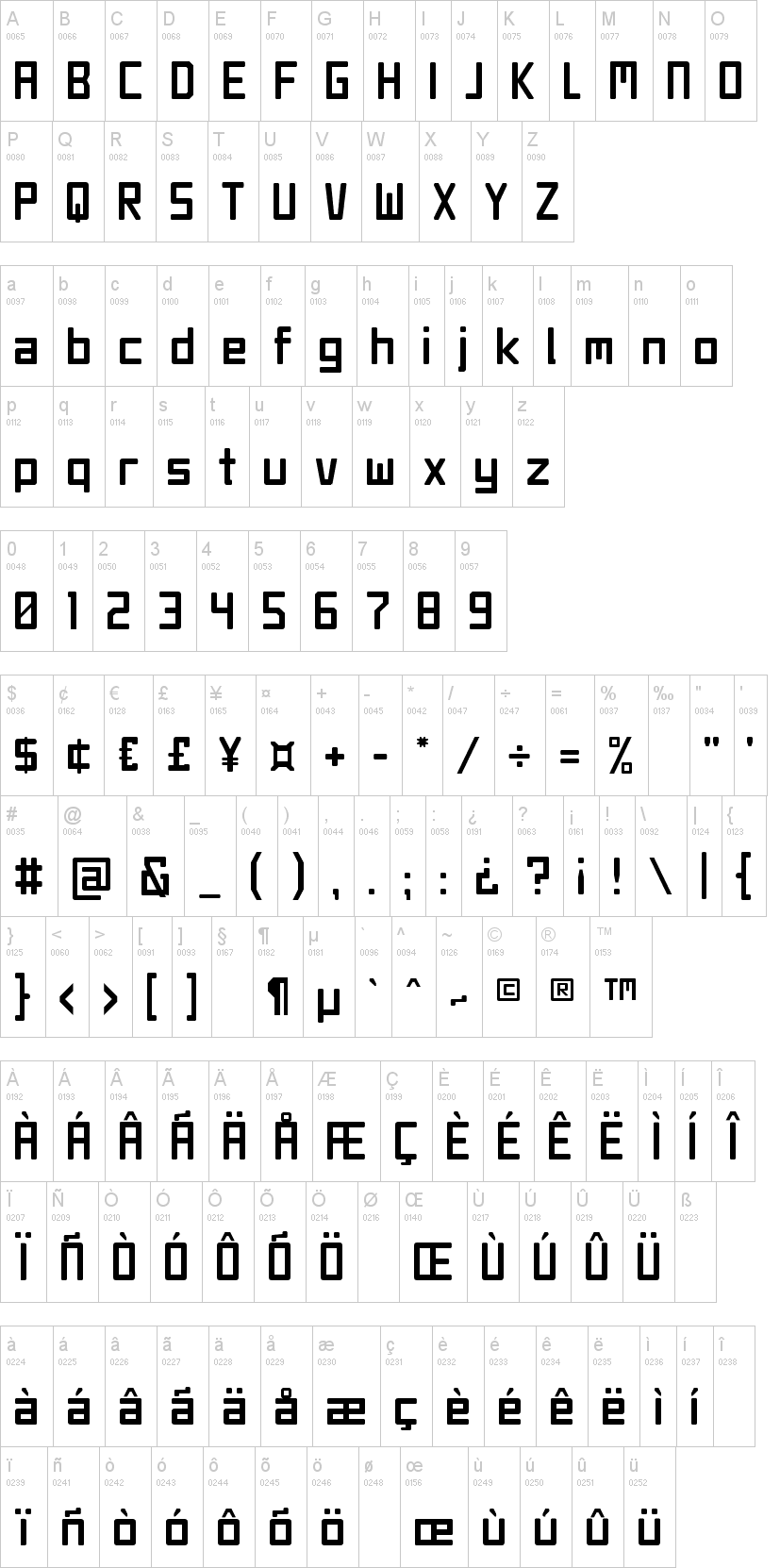
Jet Set Italic.ttfNote of the authorRemember that game, Jet Set Radio, and it's sequel, Jet Set Radio Future? Well, this font is a conglomerate of the fonts seen in those games, with a few tweaks here and there to improve readability.
[Naturally, there is an Italic version.]